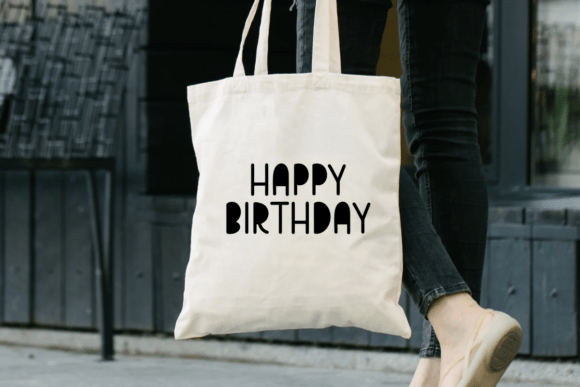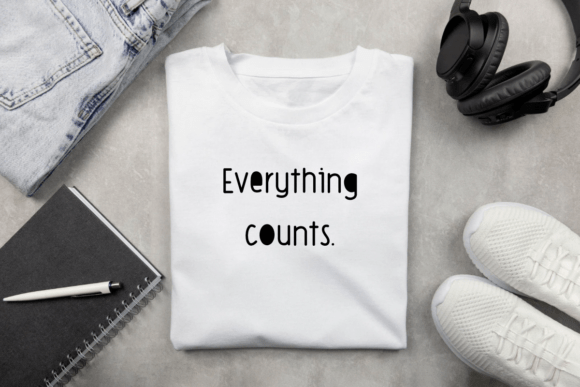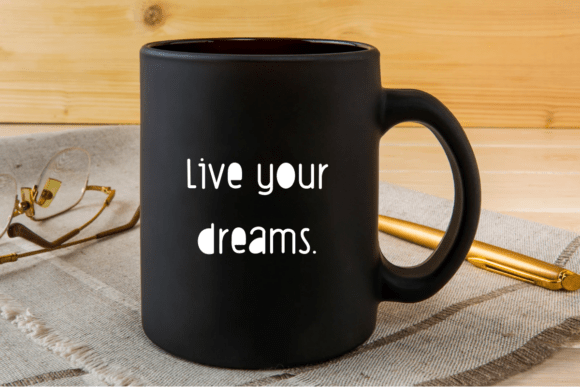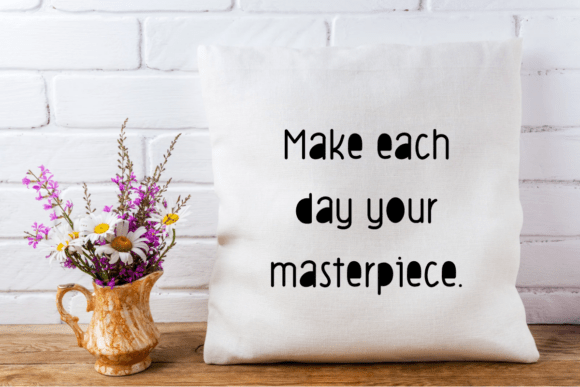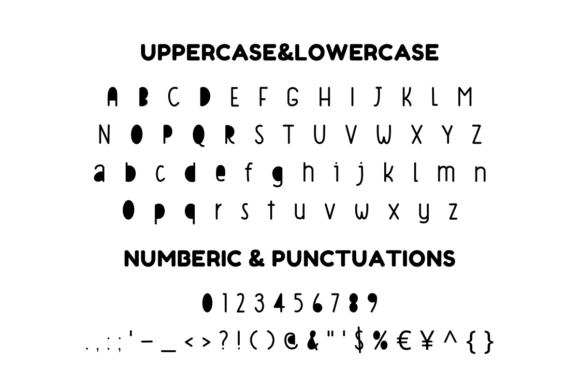
The Perfect Blend of Creativity and Expression
Have you ever sat down with a blank sheet of paper, a pen, and a burst of inspiration, only to let your imagination run wild and create something truly unique? For designers, this moment is not just a hobby, but a way of life. And for those who crave the perfect tool to bring their ideas to life, the Designer Font is here to revolutionize the way you create.
This beautiful handwritten font is designed for note-taking, journaling, and crafting special messages, but its possibilities extend far beyond. With the Designer Font, you can add a personal touch to any design project, from social media posts to banners, mugs, and even stationery. Its versatility makes it an invaluable asset for designers, allowing them to express their creativity and bring their visions to life in a way that’s truly authentic.
Designer Font Key Features
- Unique Characteristics: Features a modern, clean design with precise lines and subtle flair, ideal for creating professional and elegant typography.
Designer Font Review
Overall, I’d say Designer Font is a solid choice, but it’s not without its flaws.
- Beautiful typography: The font is incredibly aesthetically pleasing, with a clean and modern design that’s perfect for any project.
- Good for body text: Designer Font performs well in large blocks of text, making it a great choice for articles, blog posts, and other written content.
- Not ideal for headings: While the font is great for body text, it’s not the best choice for headings and titles, which can sometimes look a bit too plain.
- Limited font weights: The font only comes in a few different weights, which can limit its versatility and make it harder to create visual hierarchy.
- Not suitable for bold text: The font can struggle with bold text, which can become difficult to read at larger sizes.
Overall, I’d recommend Designer Font for anyone looking for a clean and modern font for body text, but it may not be the best choice for projects that require more visual flair or flexibility.
Use Designer Font for:
Brand logos and identity
Headlines and titles
Body text and paragraphs
Menu and navigation systems
Alternatives to “Designer Font” for Designers
Montserrat is a sans-serif typeface designed by Julieta Ulanovsky. It is a popular alternative to “Designer Font” due to its modern and clean aesthetic. Montserrat is ideal for use in digital design, particularly for headings and titles, as it is highly legible and versatile. Compared to “Designer Font”, Montserrat is more geometric and has a more urban feel.
Open Sans is a sans-serif typeface designed by Steve Matteson. It is a highly readable and neutral font that is suitable for a wide range of applications. Open Sans is a great alternative to “Designer Font” when you need a clean and simple font that is easy to read in various contexts. Compared to “Designer Font”, Open Sans is more minimalist and lacks the decorative flair of “Designer Font”.